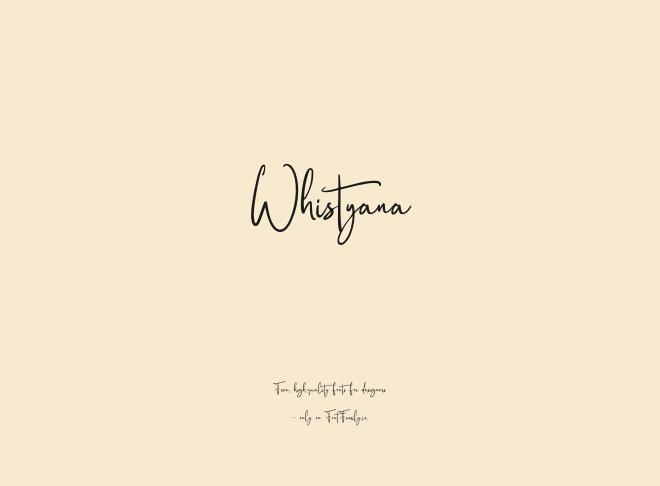
Whistyana Font
Whistyana Font is a beautifully handcrafted script font by Creatype Studio. With its delicate, flowing curves and natural line variation, it exudes elegance and sophistication, making it an excellent choice for wedding invitations, greeting cards, and branding. Its handwritten style gives it a personal touch, while maintaining readability. Compared to other script fonts, Whistyana stands out due to its unique balance of organic flow and structure, making it versatile for various design projects. Whether you're creating a rustic wedding invitation, a classy business card, or an eye-catching social media post, Whistyana Font is a fantastic option. Its unique style will add a touch of charm and elegance to any design project.